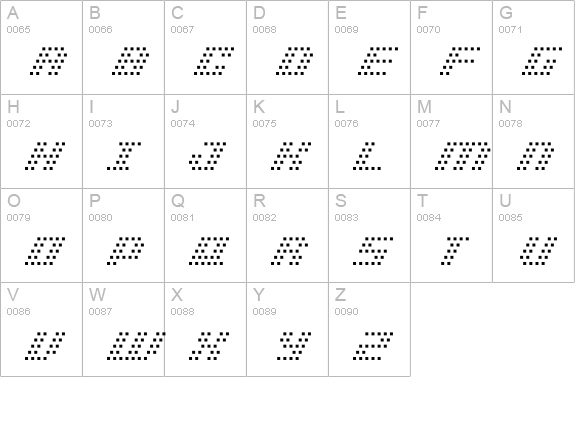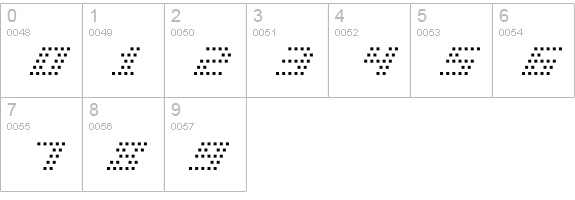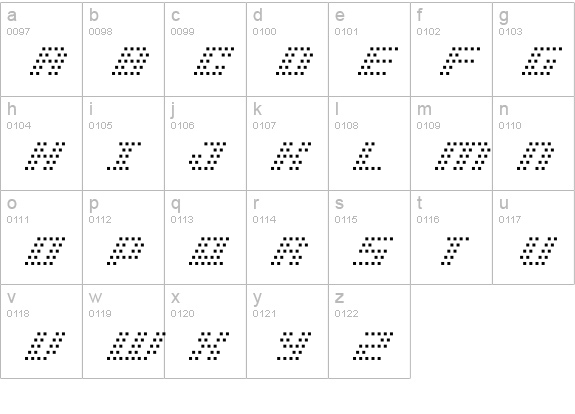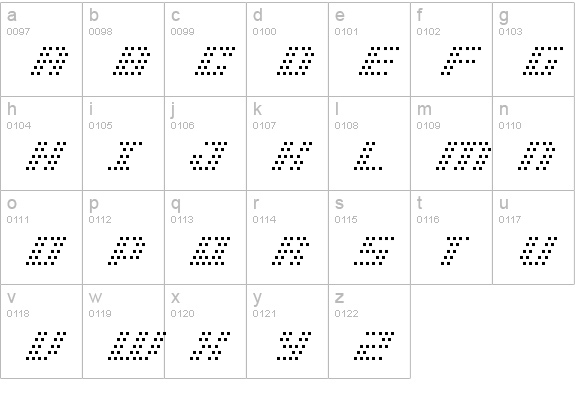
BM pinhole A13 Font Details
The BM pinhole A13 font is a unique and stylish typeface that exudes creativity and modernity. With its intricate details and clean lines, this font is perfect for adding a touch of sophistication to any design project. The pinhole effect adds a subtle texture, making it stand out from other fonts. What makes the BM pinhole A13 font even more appealing is that it is available for free download at FontsMarket.com. This means you can easily access this high-quality font without any cost, making it a valuable resource for designers, artists, and creators looking to elevate their work with a visually striking and versatile typeface. Whether you're working on a branding project, website design, or any other creative endeavor, the BM pinhole A13 font is sure to make a statement and leave a lasting impression. Download it for free today and unleash your creativity with this exceptional font.